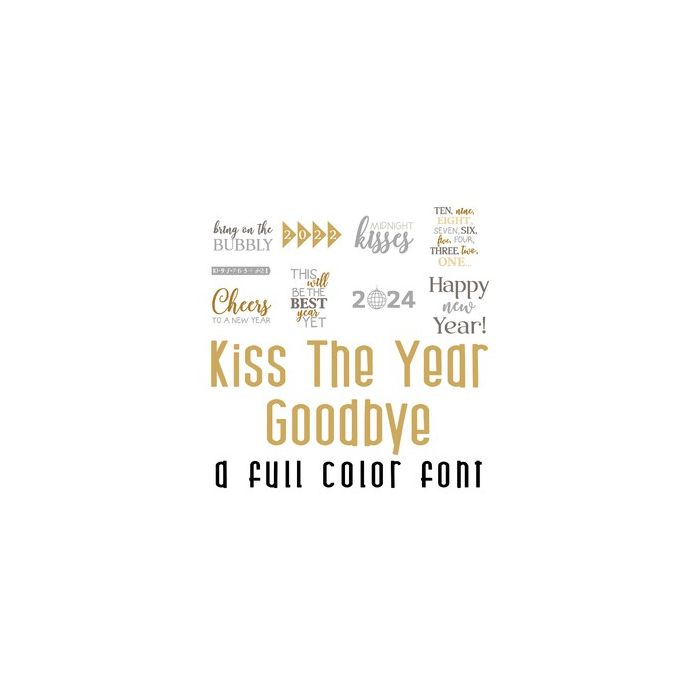
This adorable full-color doodlebat font features beautiful bird families and cozy home items. Perfect for cards, crafts, gifts, decor, scrapbook pages, planner stickers, and more! Glyphs are A-Z and 0-6 and updated for 2024.